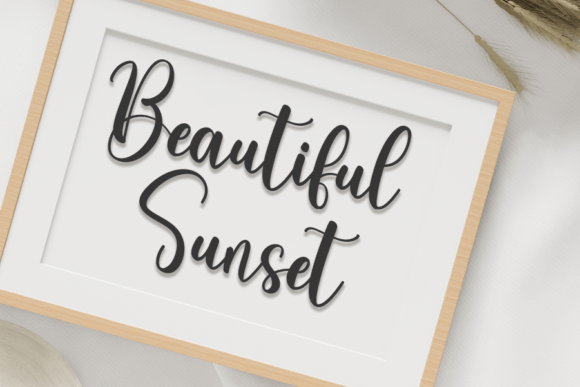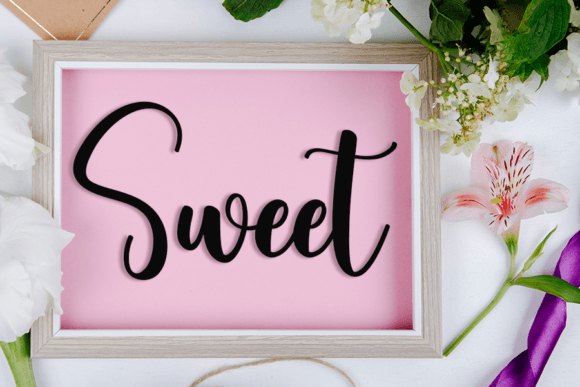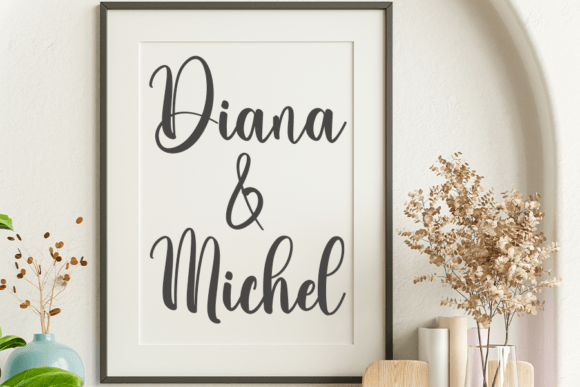
Billiards Font: Elevate Your Designs with Elegance and Timeless Style
Are you on the hunt for a font that exudes elegance, sophistication, and a touch of timeless charm? Look no further than the Billiards Font, a stunning handwritten typeface that is sure to capture your heart. With its incredibly distinct and beautiful style, Billiards is the perfect addition to any design project, from crafting and branding to digital and print media.
The Beauty of Billiards Font
Billiards Font is a neat and beautiful handwritten font that boasts an elegant touch, making it an ideal choice for designers and crafters looking to add a touch of sophistication to their work. The font’s unique and timeless style is reminiscent of classic calligraphy, yet it has a modern twist that sets it apart from more traditional typefaces.
One of the standout features of Billiards Font is its incredible legibility, making it perfect for use in a variety of applications, from large headlines to smaller body text. The font’s flowing lines and delicate curves create a sense of movement and fluidity, adding a touch of dynamism to any design.
Billiards Font is an incredibly versatile typeface that can be used in a wide range of projects, including:
- Branding and Identity: Create stunning logos, business cards, and letterheads that exude elegance and sophistication.
- Digital Media: Use Billiards Font to create eye-catching social media graphics, blog posts, and website headers that are sure to capture your audience’s attention.
- Print Media: Add a touch of class to your print projects, including brochures, flyers, and posters.
- Crafting and Scrapbooking: Use Billiards Font to add a personal touch to your scrapbooking and crafting projects, including cards, invitations, and journal pages.
Why Choose Billiards Font?
So why choose Billiards Font over other typefaces? Here are just a few reasons:
- Unique and Timeless Style: Billiards Font boasts a unique and timeless style that is sure to set your designs apart from the crowd.
- Elegant and Sophisticated: The font’s elegant and sophisticated style makes it perfect for designers and crafters looking to add a touch of luxury to their work.
- Highly Legible: Billiards Font is incredibly legible, making it perfect for use in a variety of applications.
- Versatile: The font can be used in a wide range of projects, from digital media to print media and crafting.
Tips for Using Billiards Font
Here are a few tips for getting the most out of Billiards Font:
- Experiment with Font Sizes: Billiards Font looks great in a variety of font sizes, from large headlines to smaller body text.
- Pair with Other Fonts: Try pairing Billiards Font with other fonts to create a unique and eye-catching design.
- Use in Combination with Images: Billiards Font looks great in combination with images, particularly those with a vintage or distressed feel.
In conclusion, Billiards Font is a stunning handwritten typeface that is sure to elevate your designs to the next level. With its elegant and sophisticated style, highly legible design, and versatility, Billiards Font is the perfect choice for designers and crafters looking to add a touch of timeless charm to their work. So why wait? Fall in love with Billiards Font today and start creating spectacular designs that will leave a lasting impression!